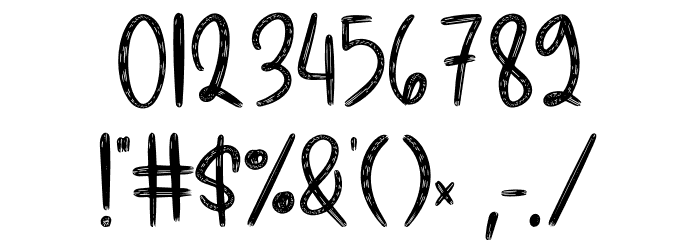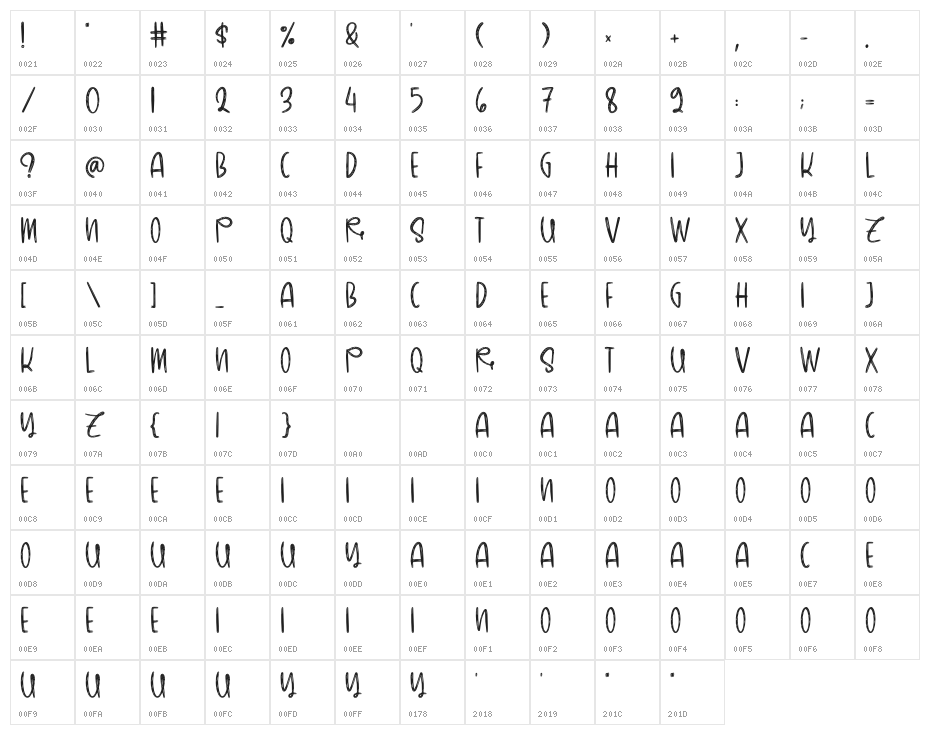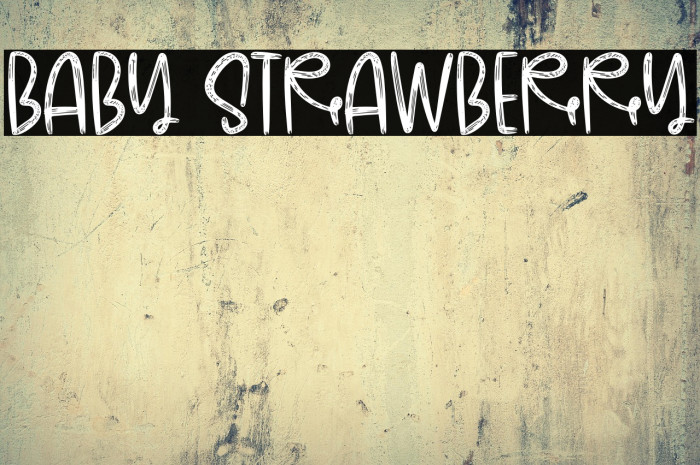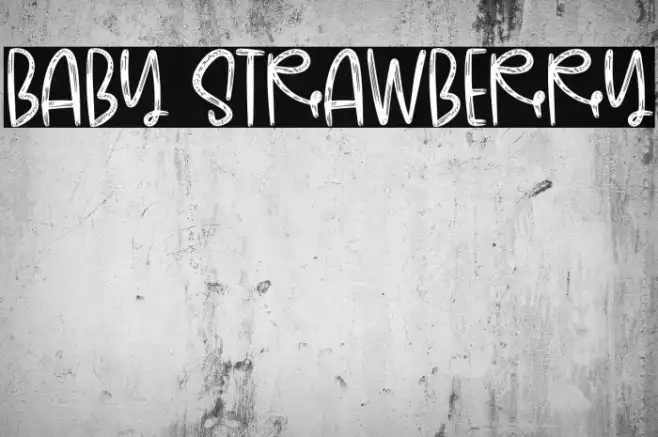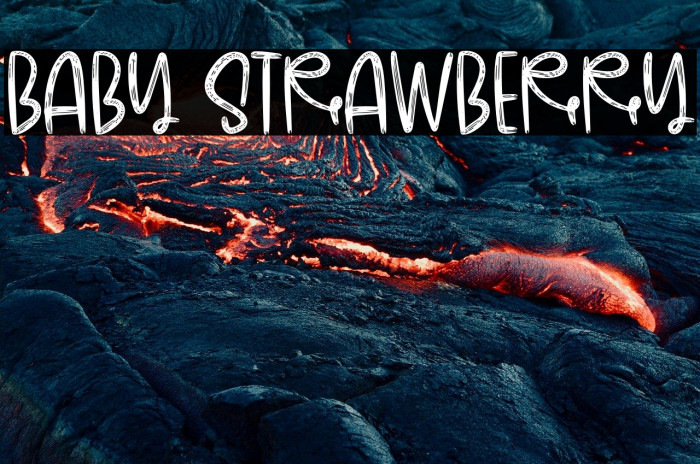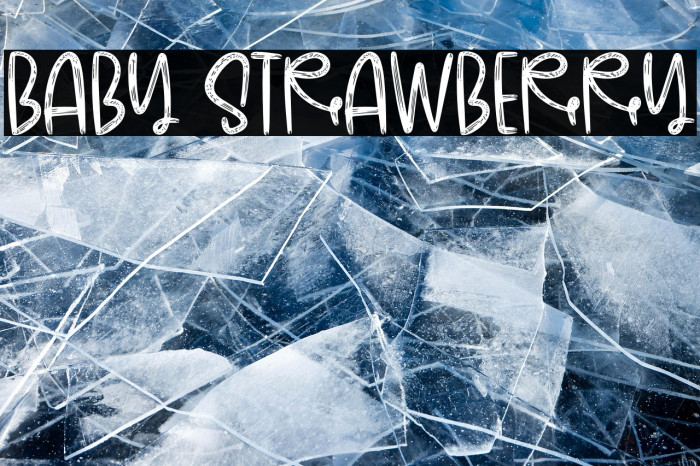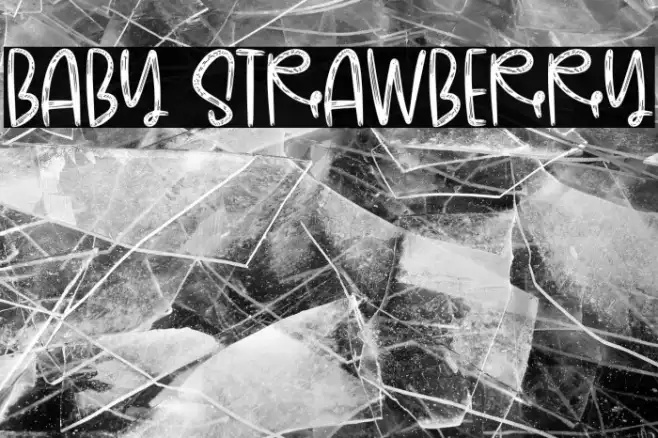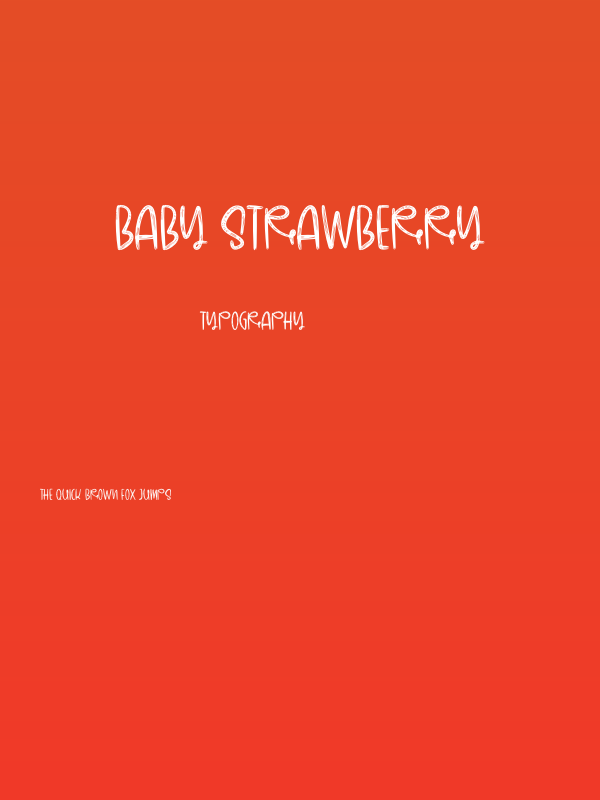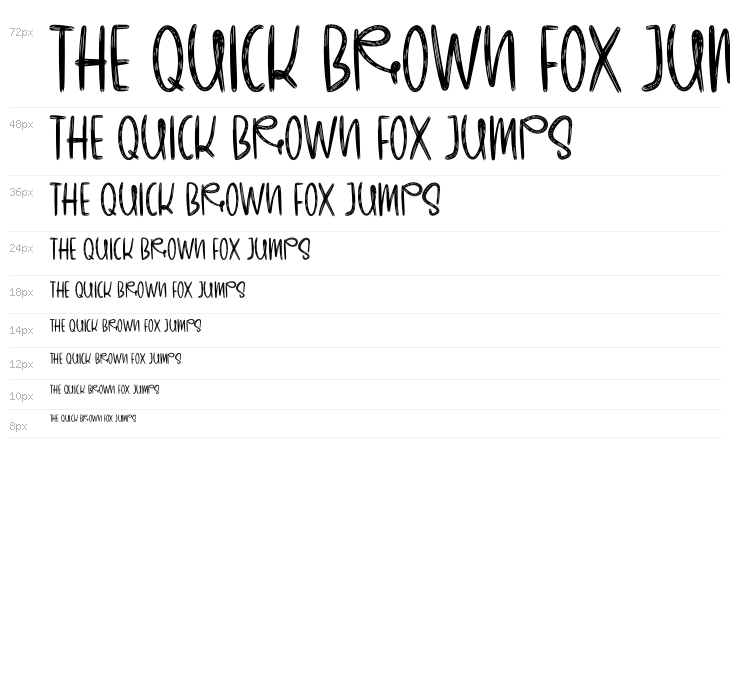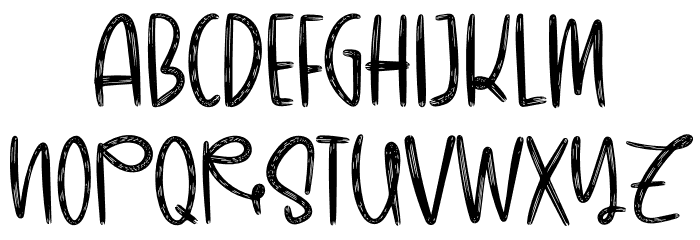
Baby Strawberry Font
Baby Strawberry Description
This playful and whimsical font features a hand-drawn style with a textured, sketch-like appearance. The letters are bold and slightly irregular, giving them a lively and energetic feel. The strokes are uneven, adding to the casual and informal aesthetic. The font includes both uppercase and lowercase letters, numbers, and a variety of special characters. Its unique style makes it stand out, perfect for projects that require a fun and creative touch.
| Proposed Projects | Ideal for children's book covers, playful branding, greeting cards, and creative posters. |